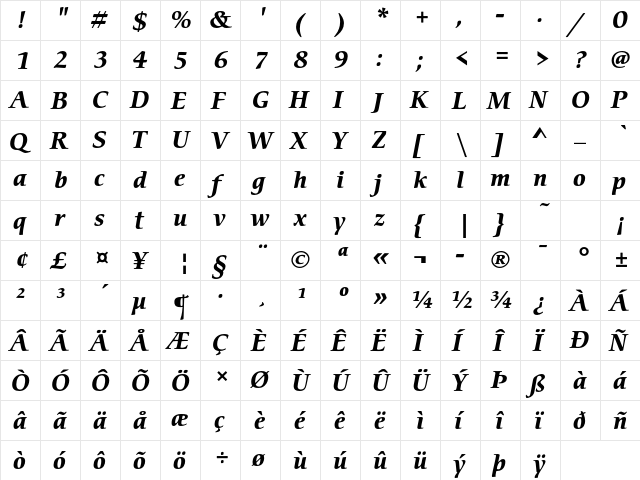
ITC Cerigo Std Bold Italic Font Preview
ITC Cerigo Std Bold Italic
ITC Cerigo Std Bold Italic Font Details
| Designer | Jean-Renaud Cuaz |
Design Context for ITC Cerigo Std Typeface
ITC Cerigo Std is a composed and adaptable typeface that performs quietly and consistently across a wide range of design contexts. The slanted form adds forward momentum and visual energy. The heavy weight commands attention and anchors typographic hierarchies.
Pro Tip: Use ITC Cerigo Std for emphasis, pull quotes, and subheadings where its slanted energy can add rhythm to the layout.